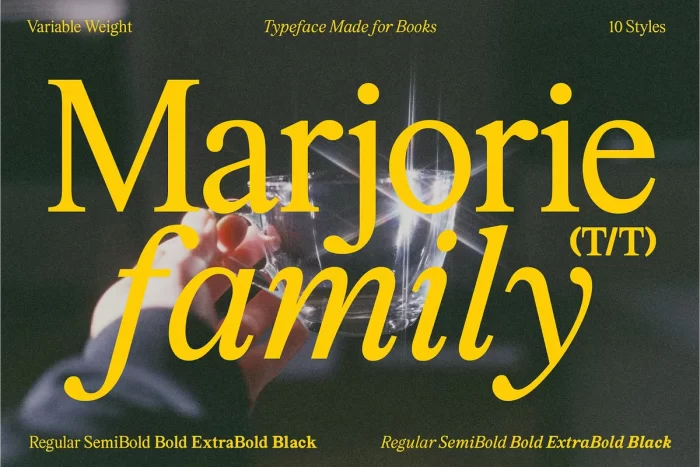
Marjorie is a serif font family that includes 10 styles 5 weights in roman, and 5 in Italic. The font includes 2 Variable fonts one for the Roman and one for the Italics.
It’s for reading long blocks of text and even books. It is easy on the eyes and not distracting letting reading being the star or the show not the font itself. This is your go to serif for putting big work.
- Variable Weight axis
- Italics
- 10 Set Styles
- Alternative “G” styles
- Small caps
- Small numbers ( like suscripts and fractions and all that stuff )
- Case sensitive punctuation
- Latin 3 Language Support